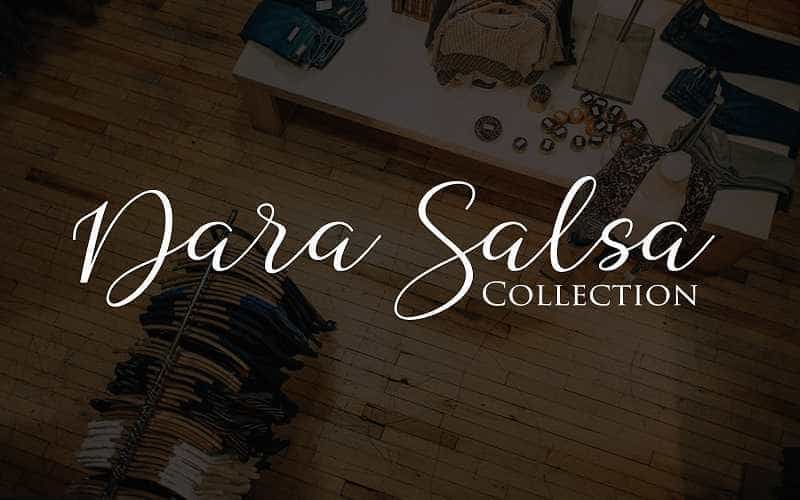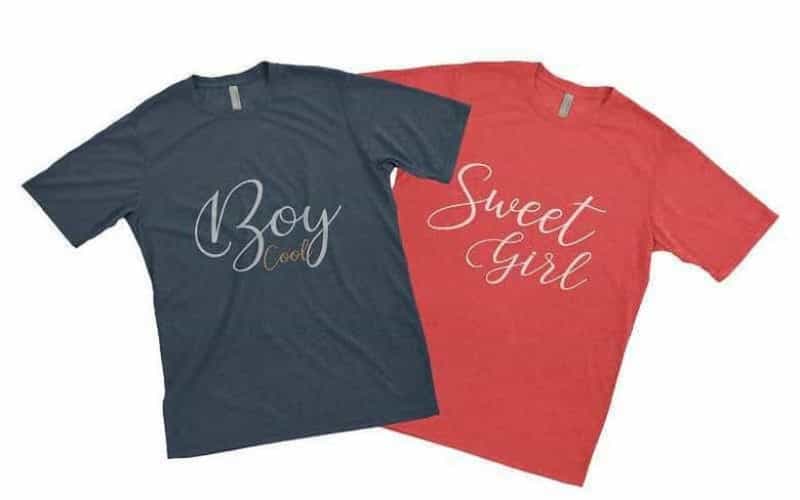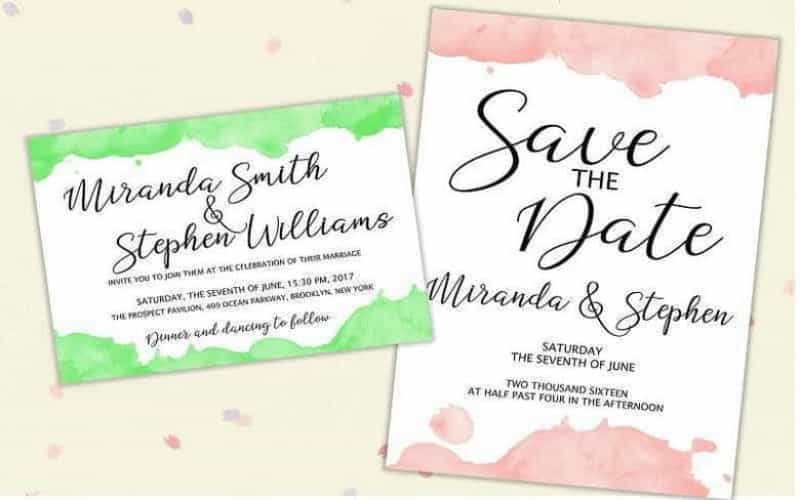
Dogma is a belief and I insist globally and I think everyone has its own belief and this is where each one prays according with the belief, There everyone has the peaceful soul where pray and remember his Lord That why I am interested in baptizing “dogma” on my last font because I think that religion is a place where complain and be the most peaceful and comfortable.